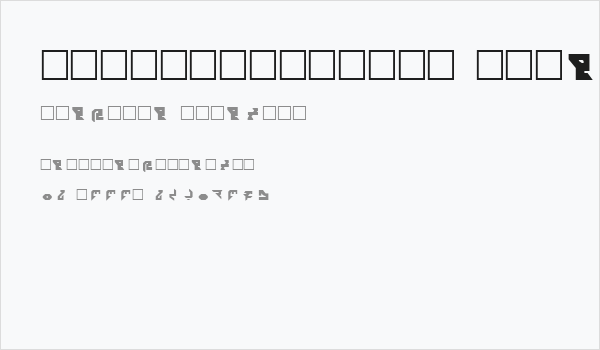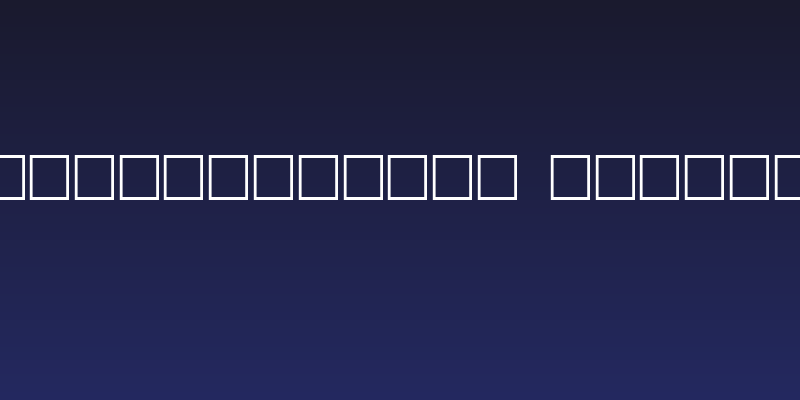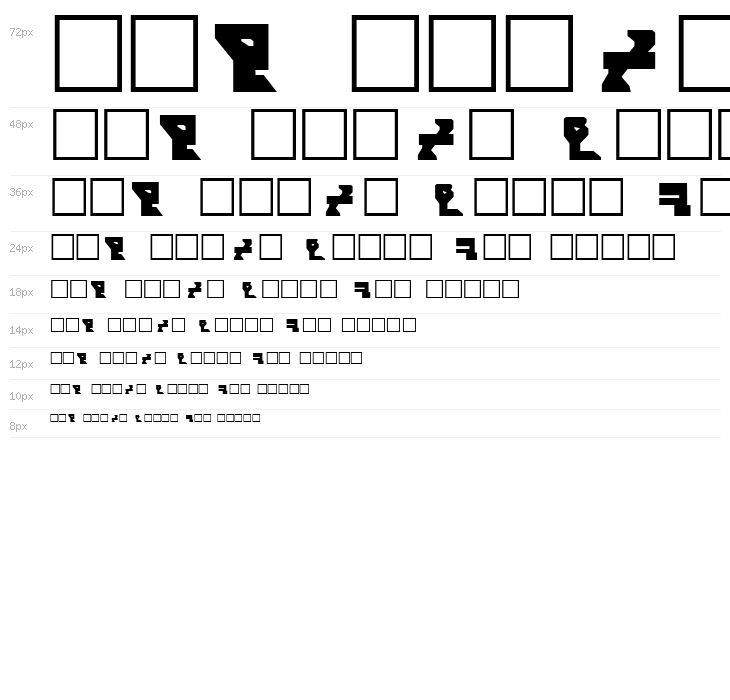
AVIAN/MYRMICAT numerals Font
AVIAN/MYRMICAT numerals Description
This font features a highly geometric and abstract design, characterized by sharp angles and bold, solid shapes. The characters are constructed with a futuristic aesthetic, resembling a blend of digital and mechanical elements. The uppercase letters are distinct and heavily stylized, while the numerals maintain a consistent angular theme. The overall appearance is striking and unconventional, making it suitable for projects that require a modern and edgy look.
Overall StyleFuturistic, Modern
Proposed ProjectsIdeal for sci-fi themed designs, video game interfaces, tech branding, and futuristic posters.